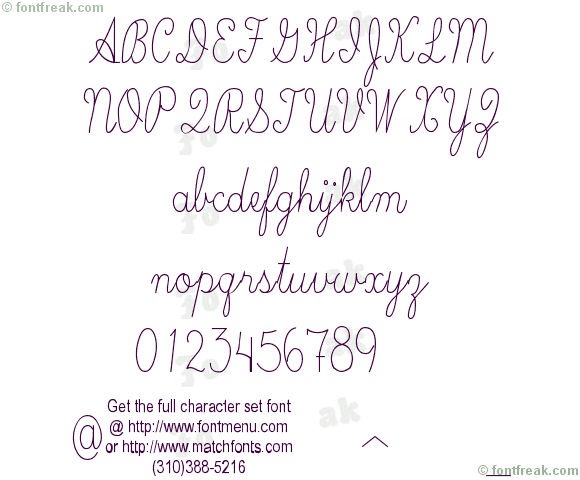
Skryptaag Tryout
Skryptaag Tryout is a captivating script font designed by Michel Bujardet, showcasing a unique blend of elegance and creativity. As a handwritten typeface, it exudes a personal touch, making it ideal for projects that require a warm and inviting feel. The font features a delicate stroke weight with subtle contrast, enhancing its graceful appearance. Its fluid letterforms and well-balanced spacing contribute to a harmonious flow, making it easy to read while still retaining a distinctive character.
This font is especially suited for a variety of applications. It shines in wedding invitations, where its romantic flair can set the perfect tone for the occasion. Additionally, Skryptaag Tryout is a great choice for restaurant menus, as it adds a touch of sophistication that can elevate the dining experience. Graphic designers can also utilize this font for branding projects, particularly for businesses that want to convey a sense of creativity and approachability. Furthermore, content creators may find it useful for social media graphics, allowing them to engage their audience with visually appealing typography.
What sets Skryptaag Tryout apart is its ability to blend beauty and functionality seamlessly. It captures attention while remaining legible, making it a fantastic choice for those looking to make a statement without sacrificing clarity. For anyone seeking a unique typeface, the Skryptaag Tryout font free download is a perfect starting point to explore its delightful characteristics.